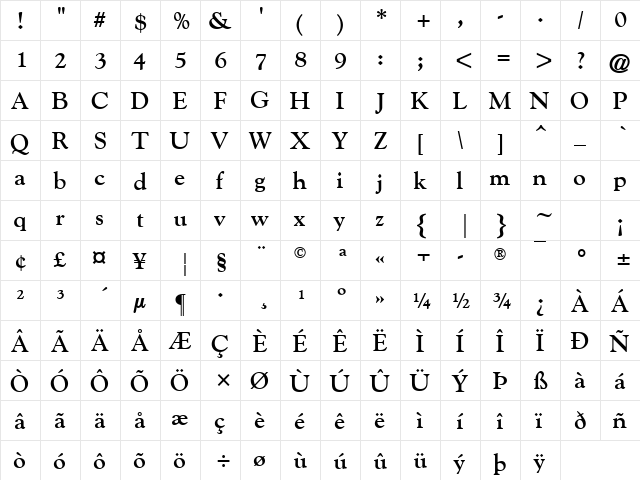
Goudy Old Style ATT Bold Font Preview
Goudy Old Style ATT Bold
Design Context for Goudy Old Style ATT Typeface
Goudy Old Style ATT takes a measured approach to typography — its balanced proportions and neutral character make it a reliable workhorse for both digital and print work. The heavy weight commands attention and anchors typographic hierarchies.